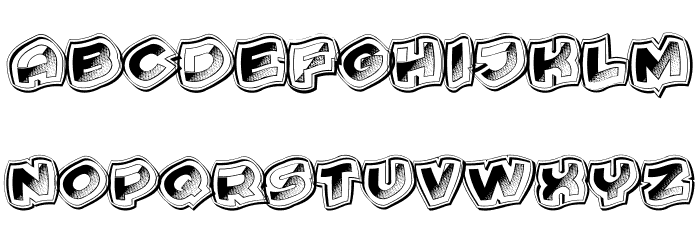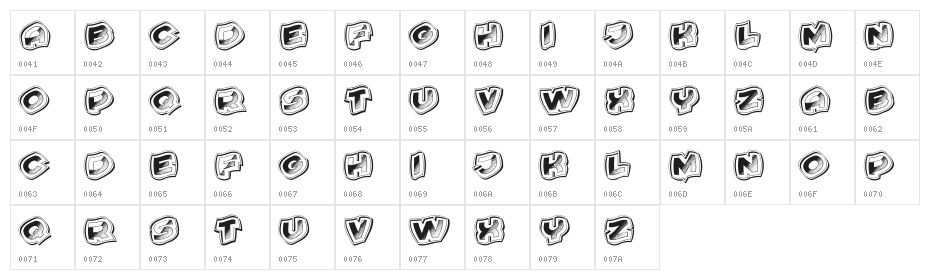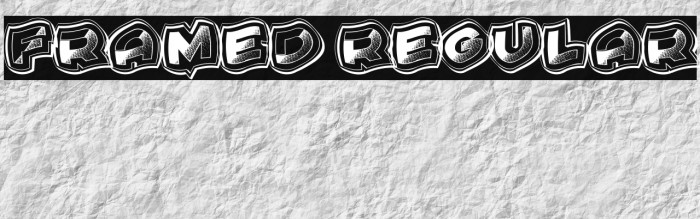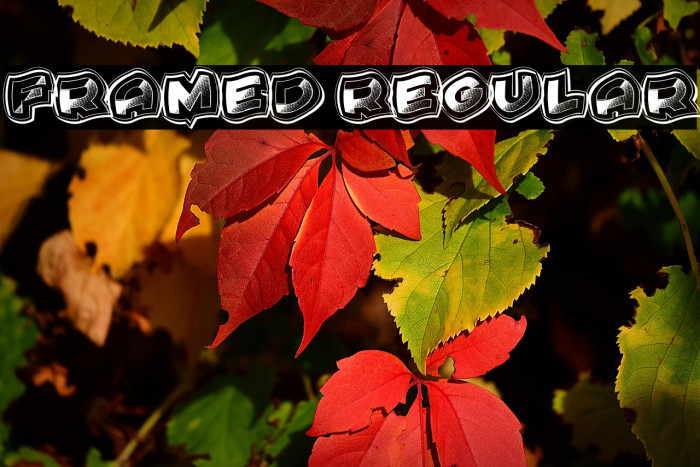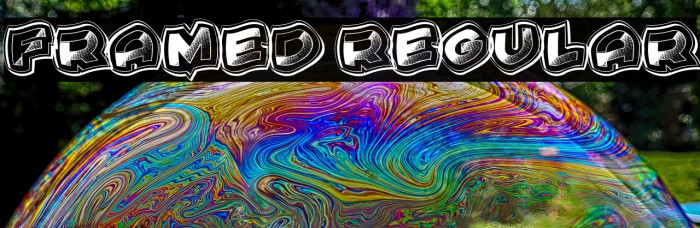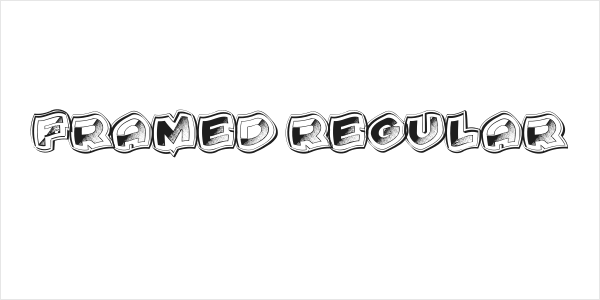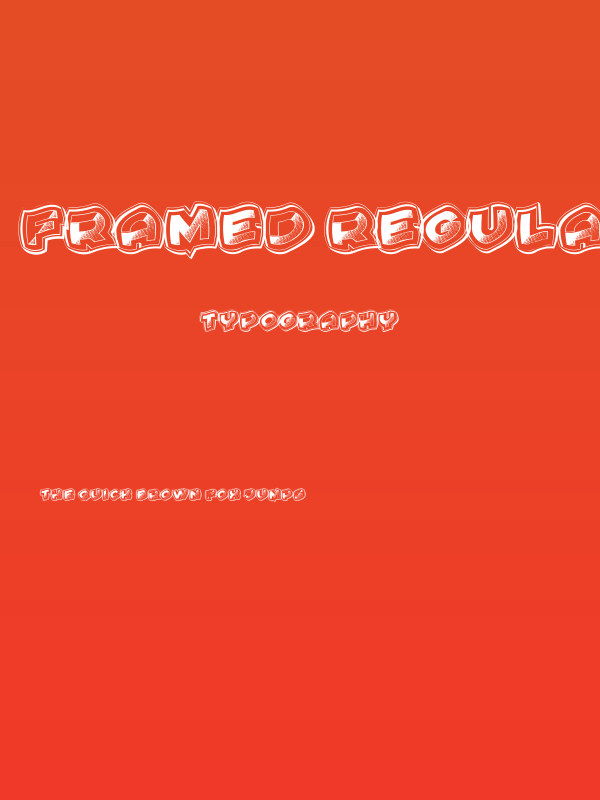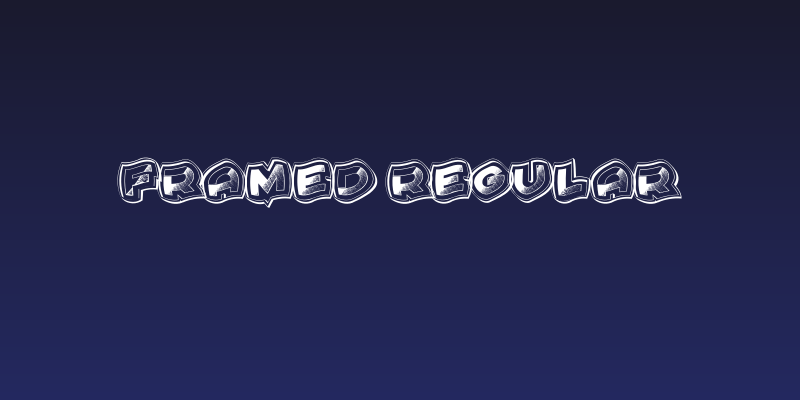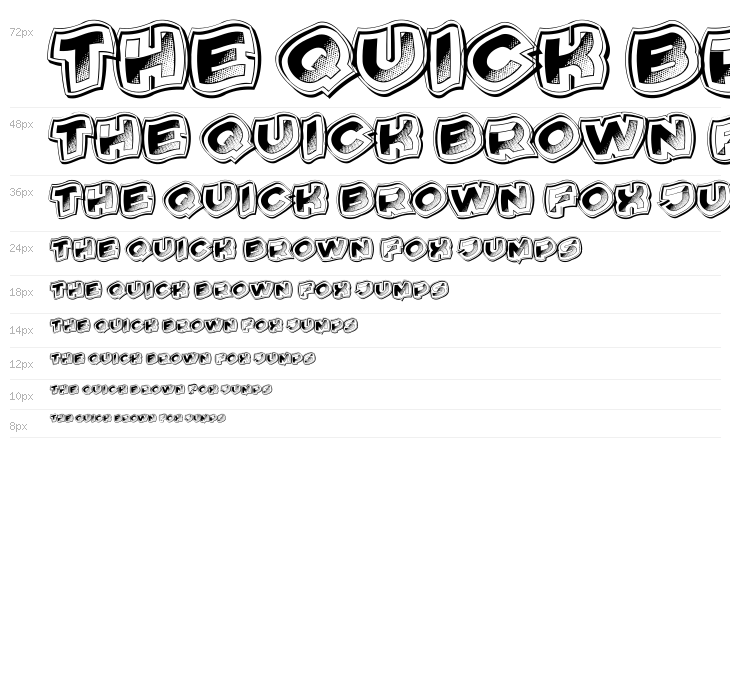
Framed Regular Font
Framed Regular Description
This font features a bold, three-dimensional style with a playful and dynamic appearance. Each character is outlined with a thick black border, creating a strong contrast against the white interior. The letters have a hand-drawn, sketch-like quality, adding to their whimsical and informal charm. The font's design includes subtle shading and texture within each letter, enhancing its depth and visual interest. The overall look is reminiscent of comic book or graffiti art, making it eye-catching and engaging. Its unique style is suitable for projects that require a fun and energetic vibe.